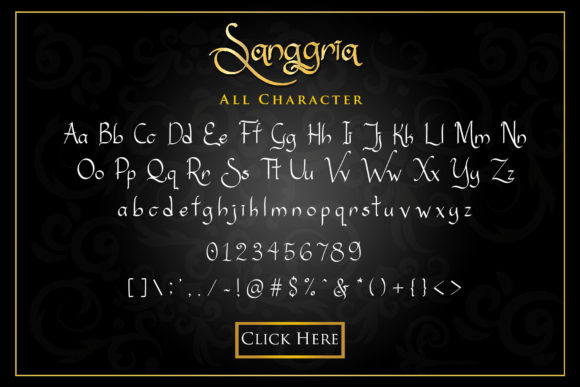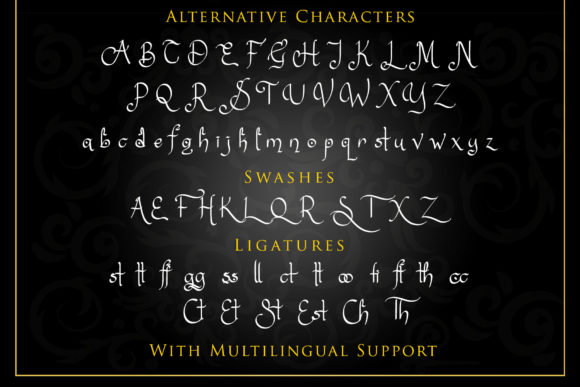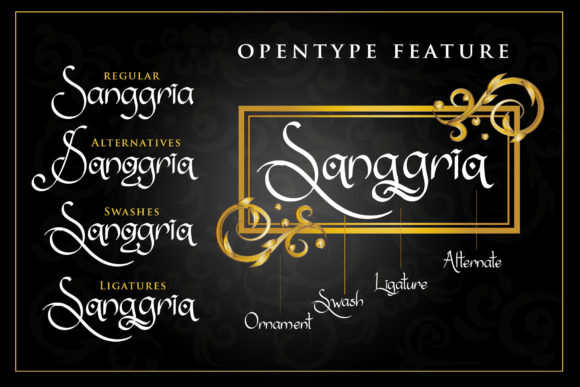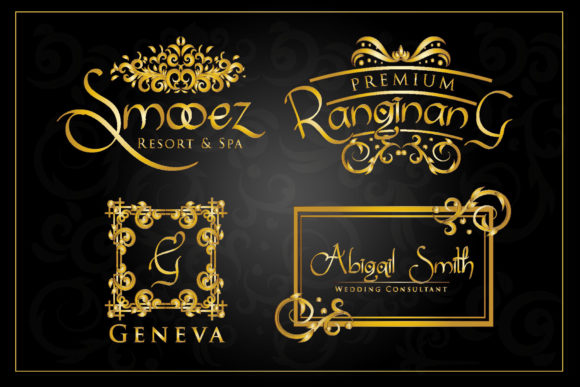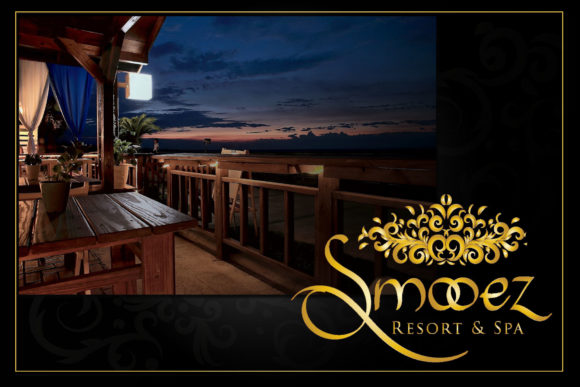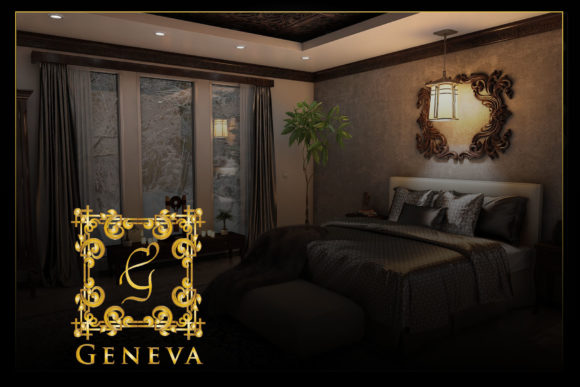
Introduction to Sanggria Font Font
Fonts play a crucial role in design, and the Sanggria Font font is a typeface that brings both character and versatility to any project. Whether you’re working on a branding project, a website, or a print design, the Sanggria Font font offers a unique style that can elevate your work.
The Sanggria is a classy handwritten font.
It was inspired by classical cultures and has an ancient calligraphy style Itβs a great choice for logos, branding, letter signs, stamps, business cards, advertisements, flyers, posters, and more.
Key Features of Sanggria Font Font
Why Choose Sanggria Font Font?
The Sanggria Font font is more than just a typeface β it’s a design tool that helps you communicate your message with style and clarity. Its unique character set and versatile design make it suitable for a wide range of applications, from elegant invitations to bold headlines.
With its carefully crafted letterforms and balanced proportions, the Sanggria Font font ensures readability and visual appeal across all mediums.
What makes Sanggria Font font special?
The Sanggria Font font stands out with its unique design, exceptional readability, and versatility across various design applications.